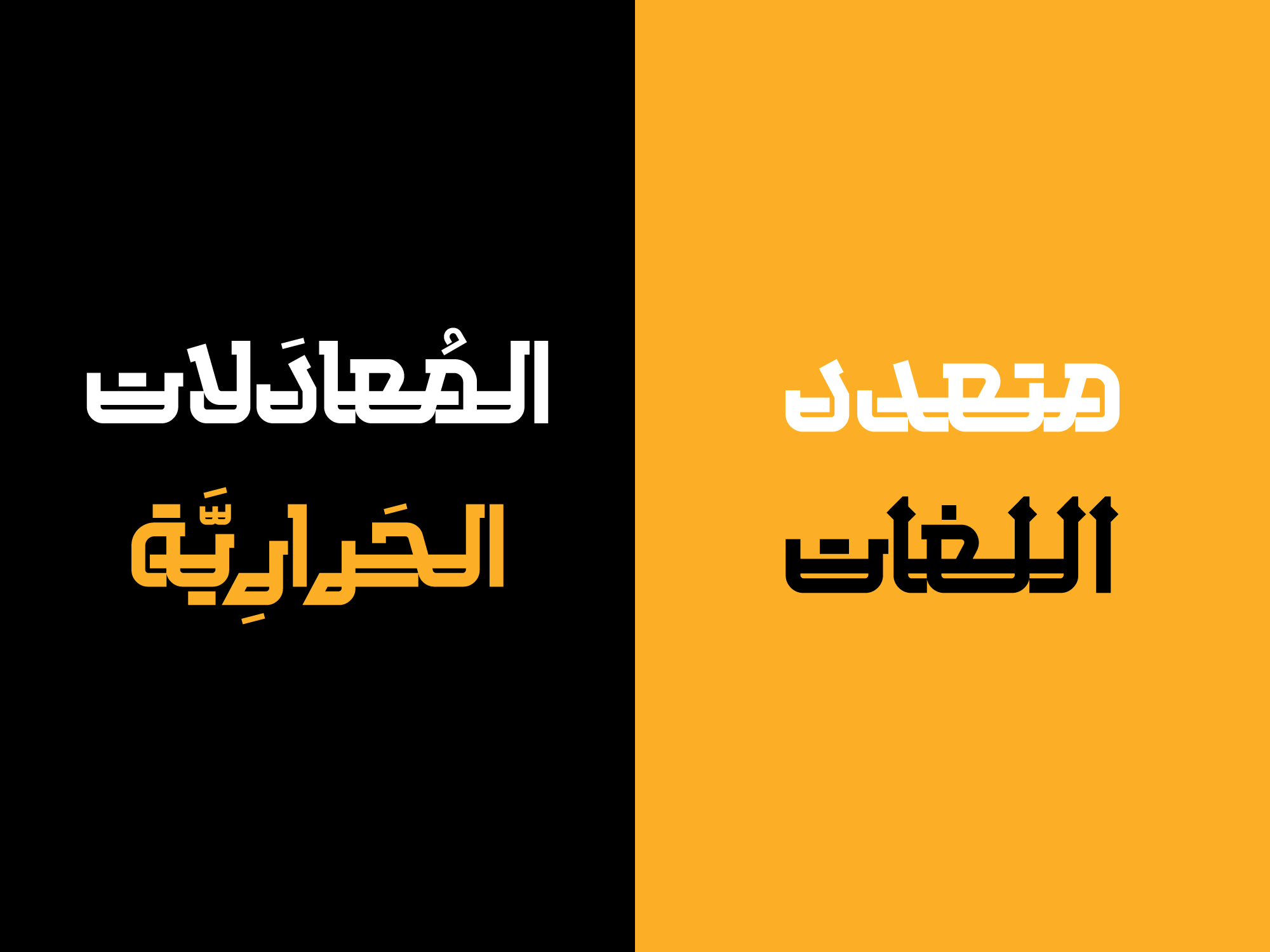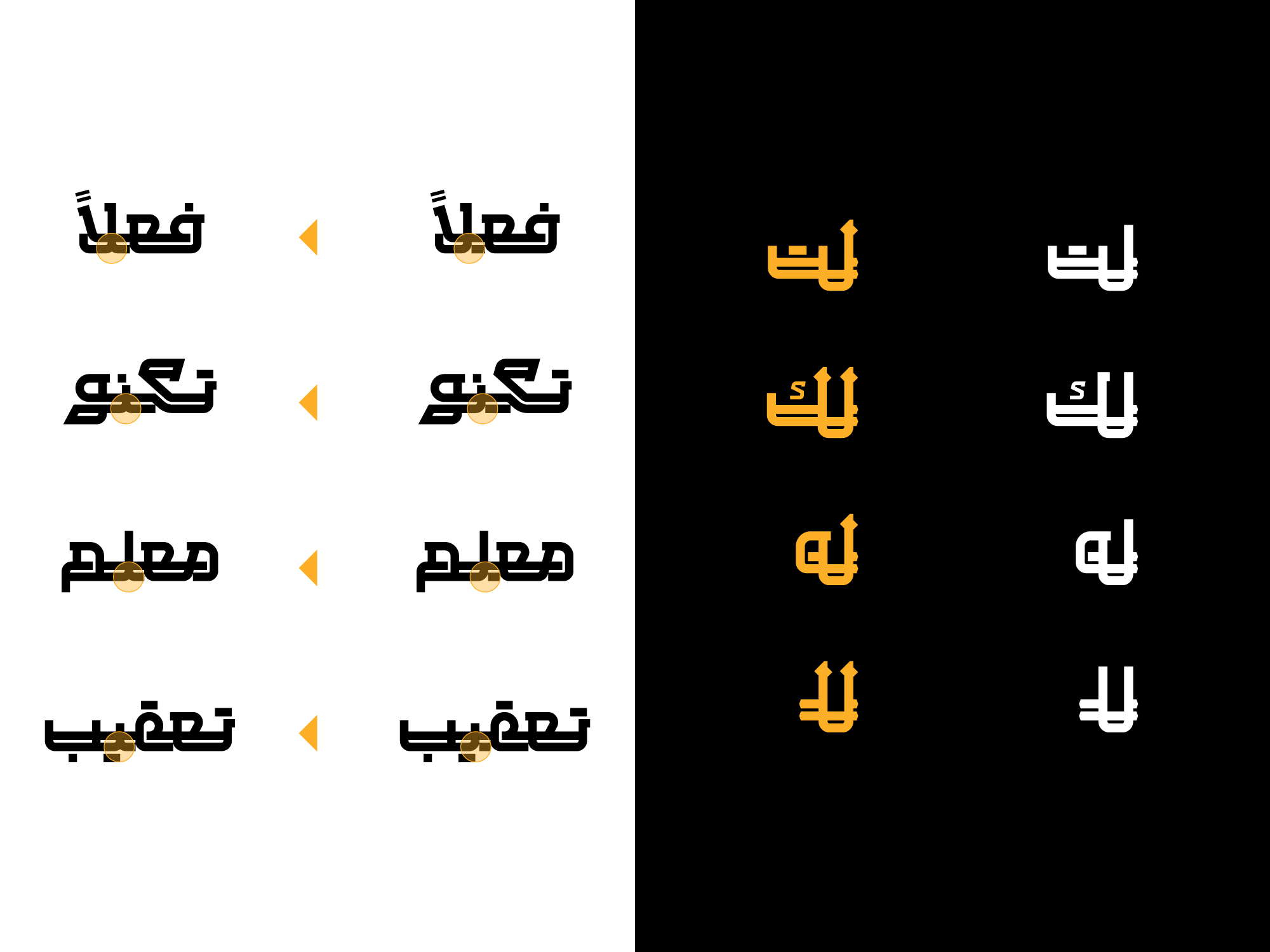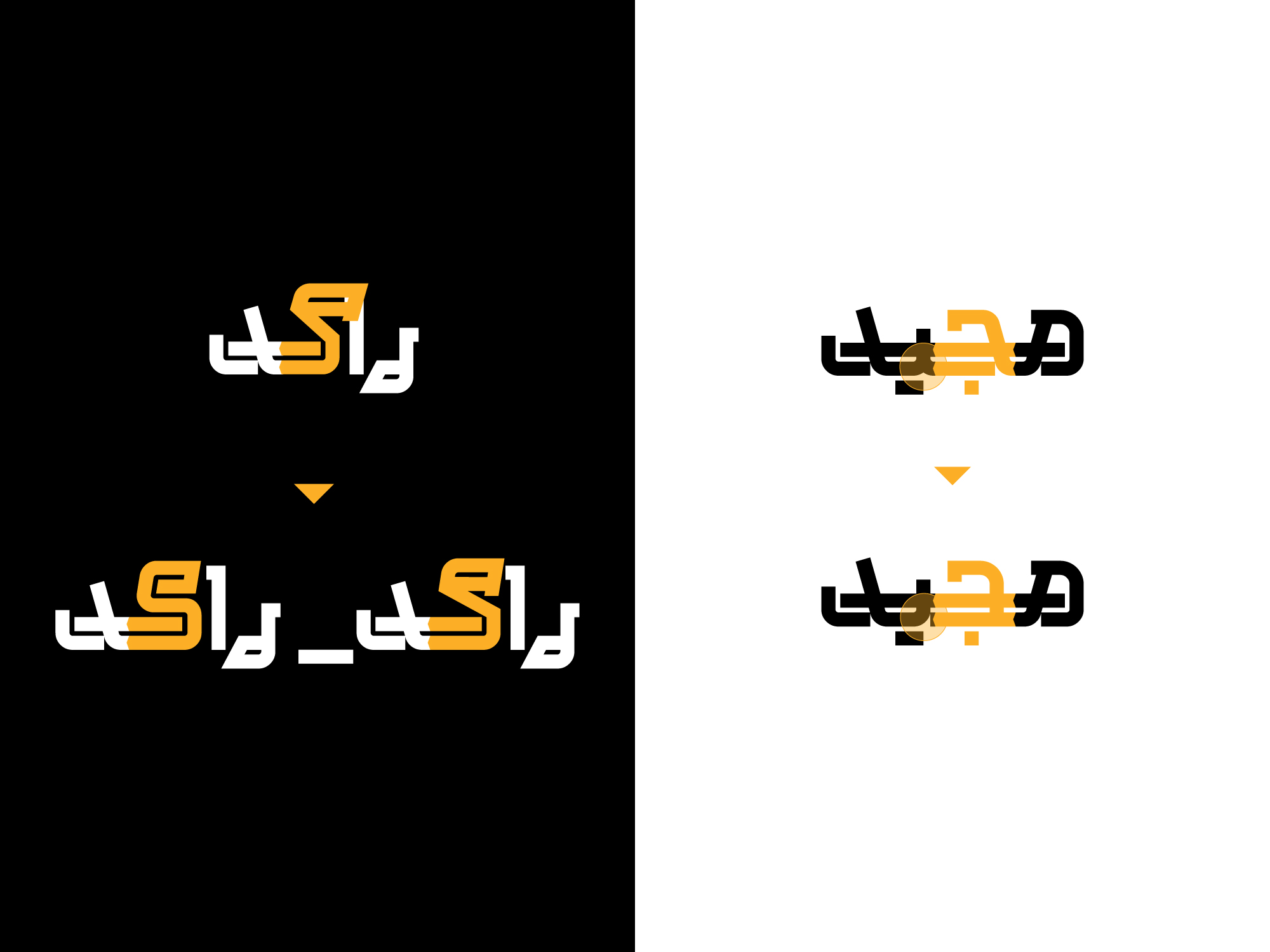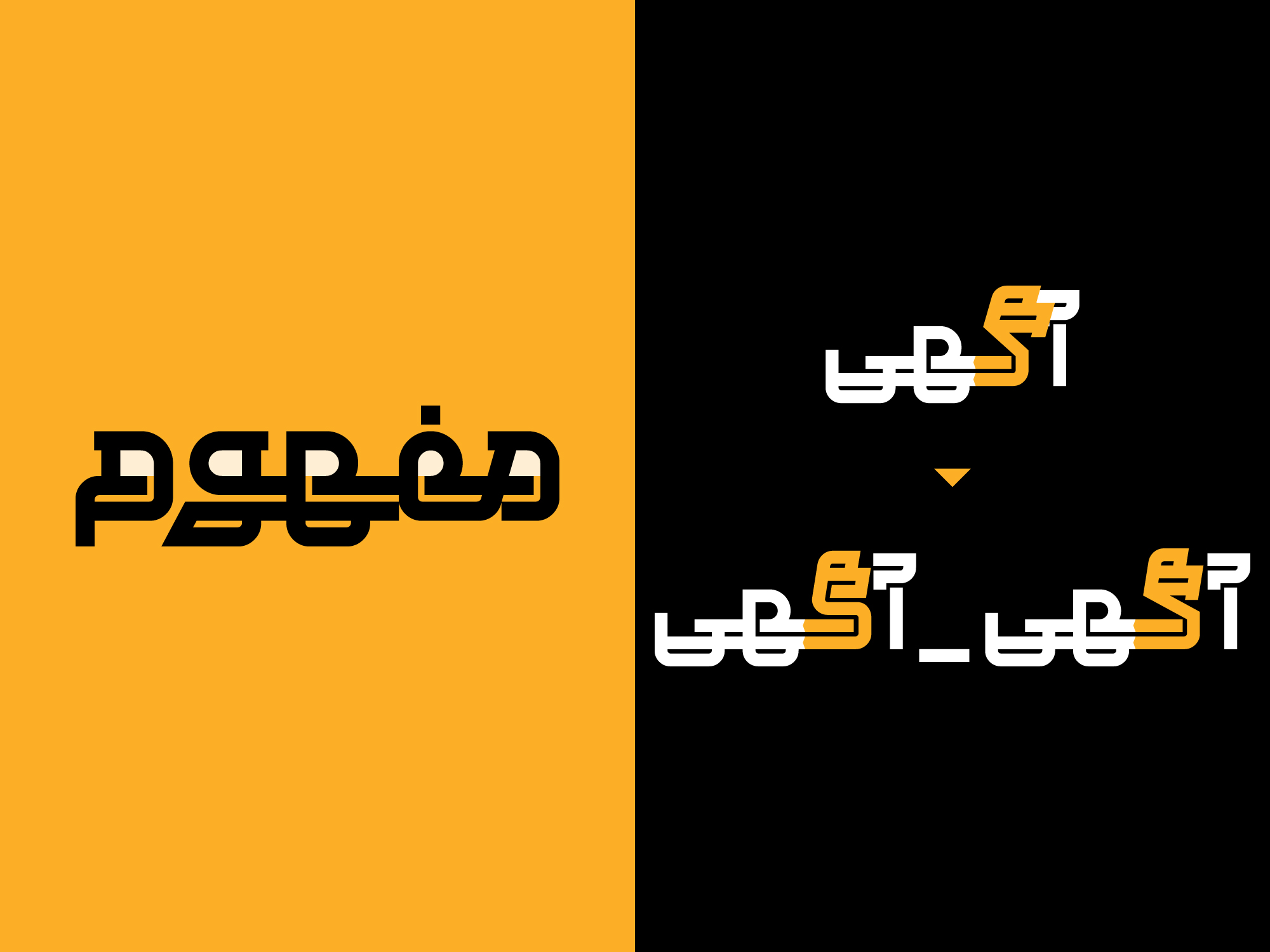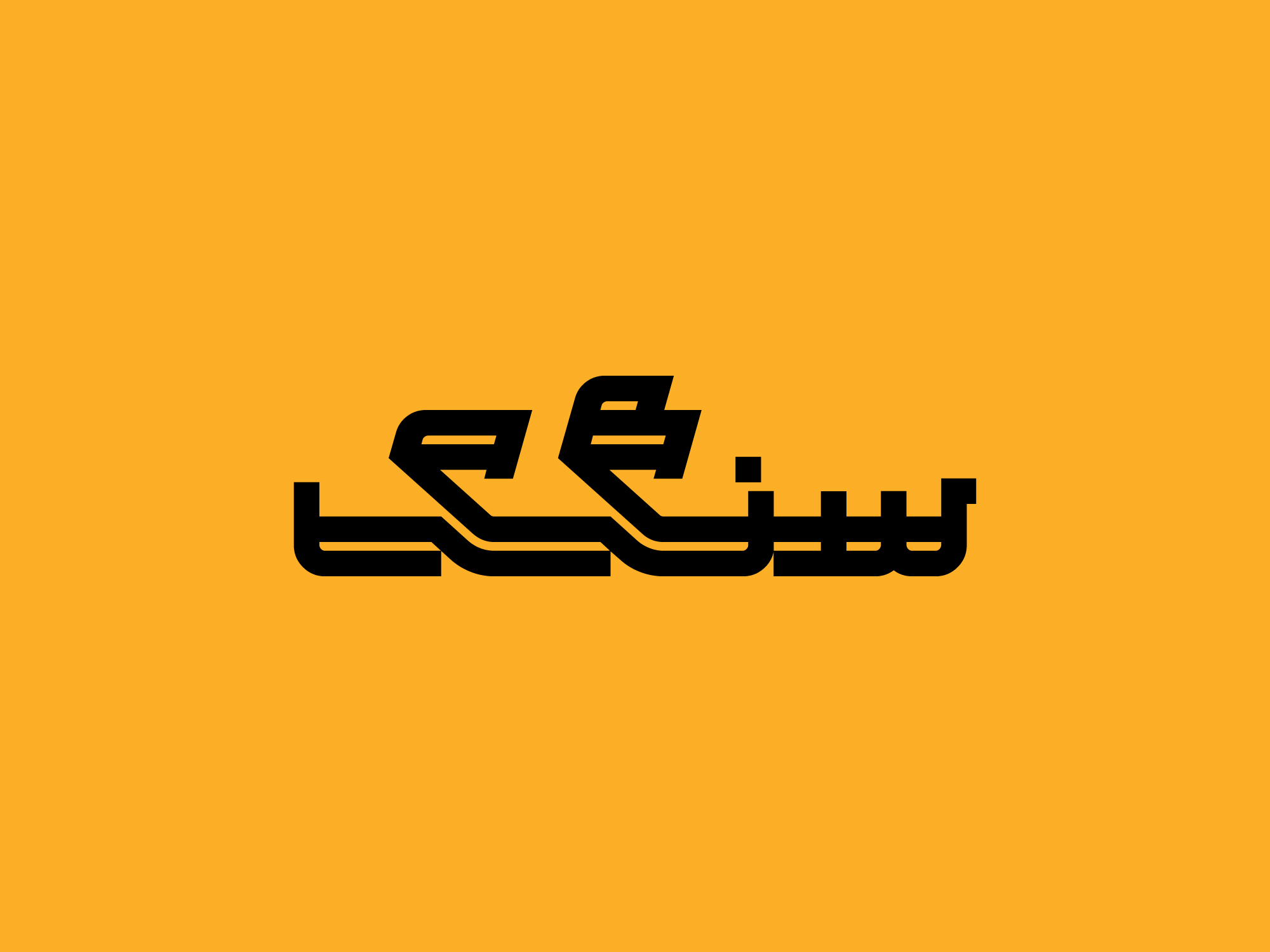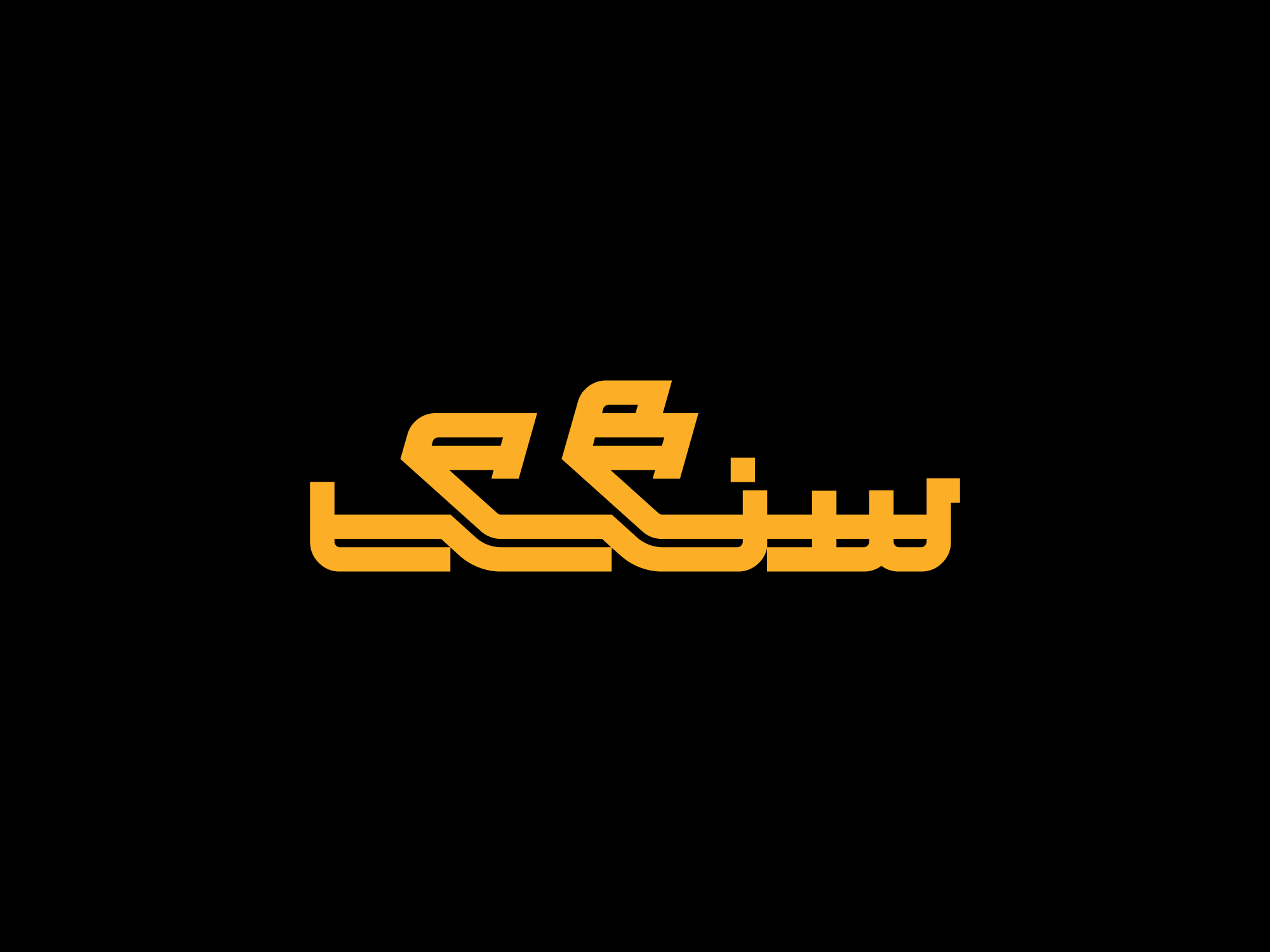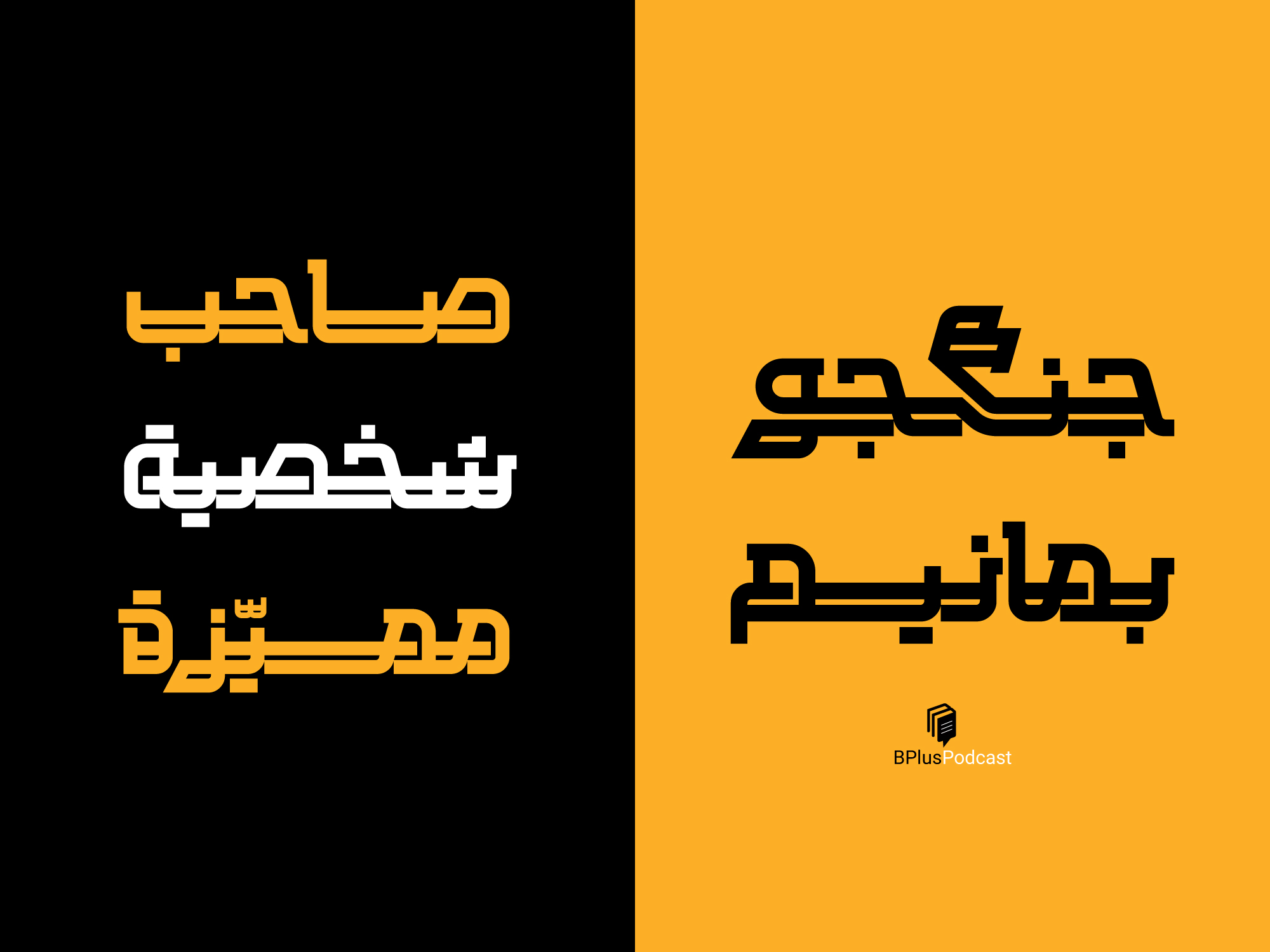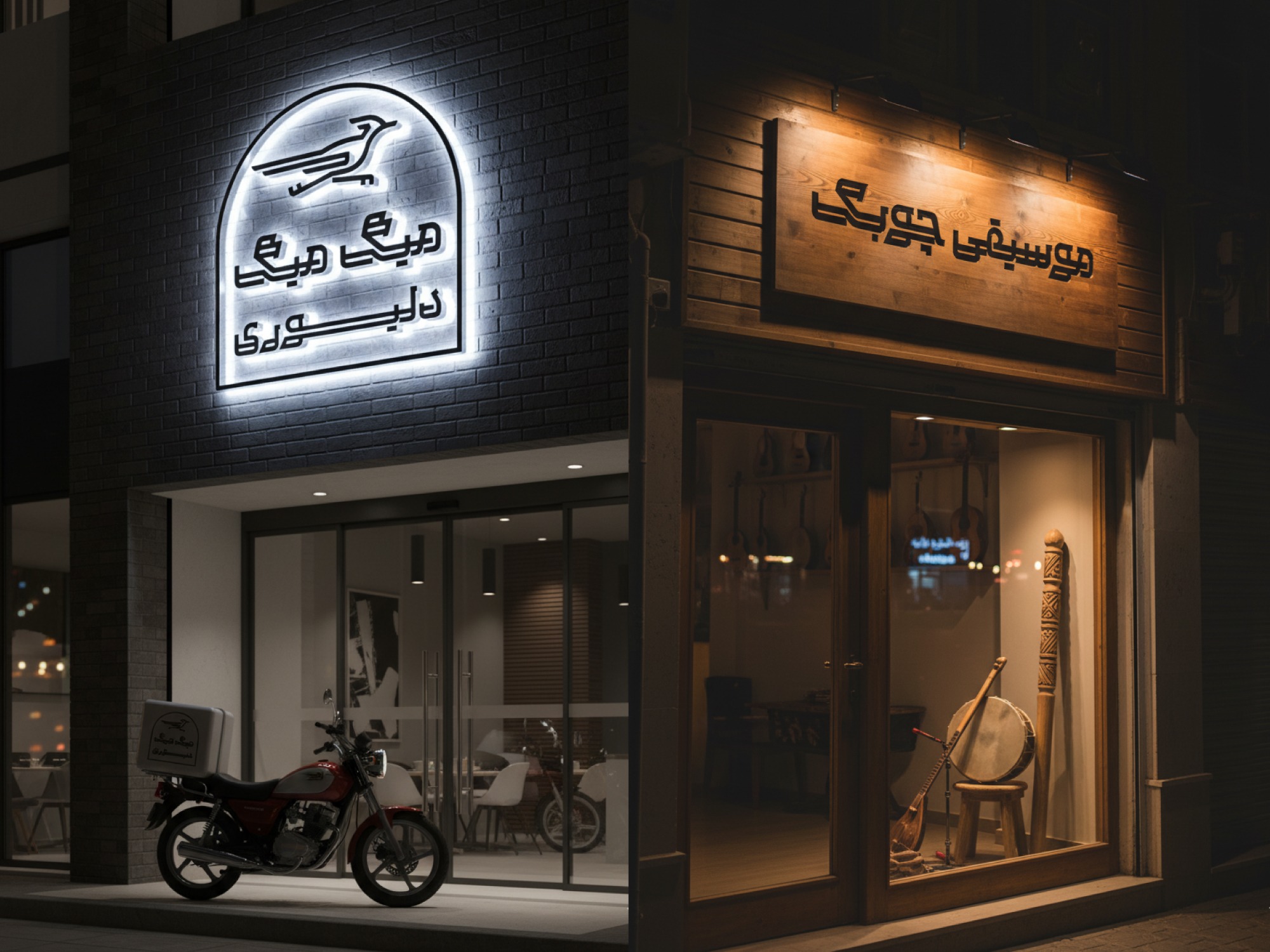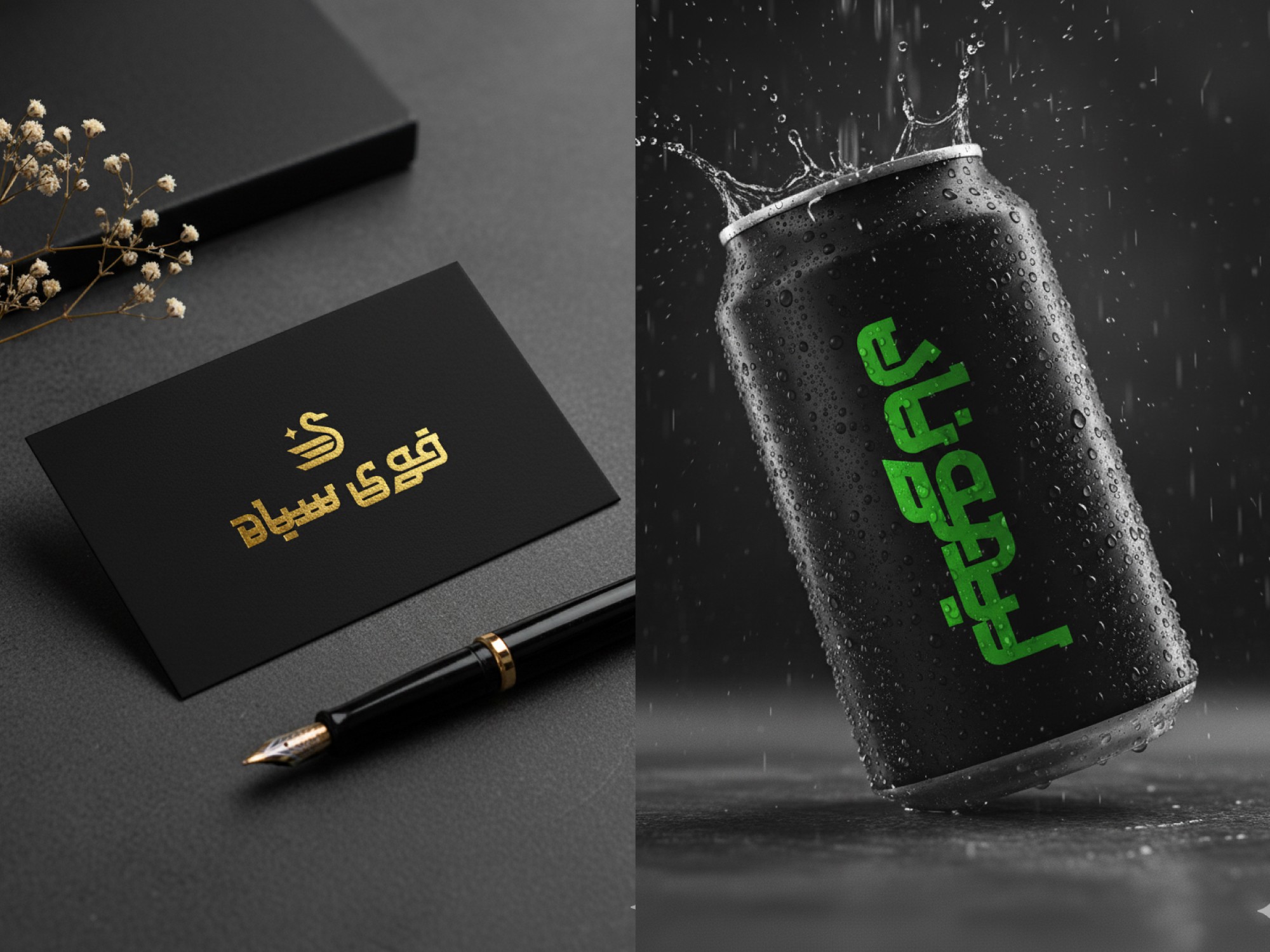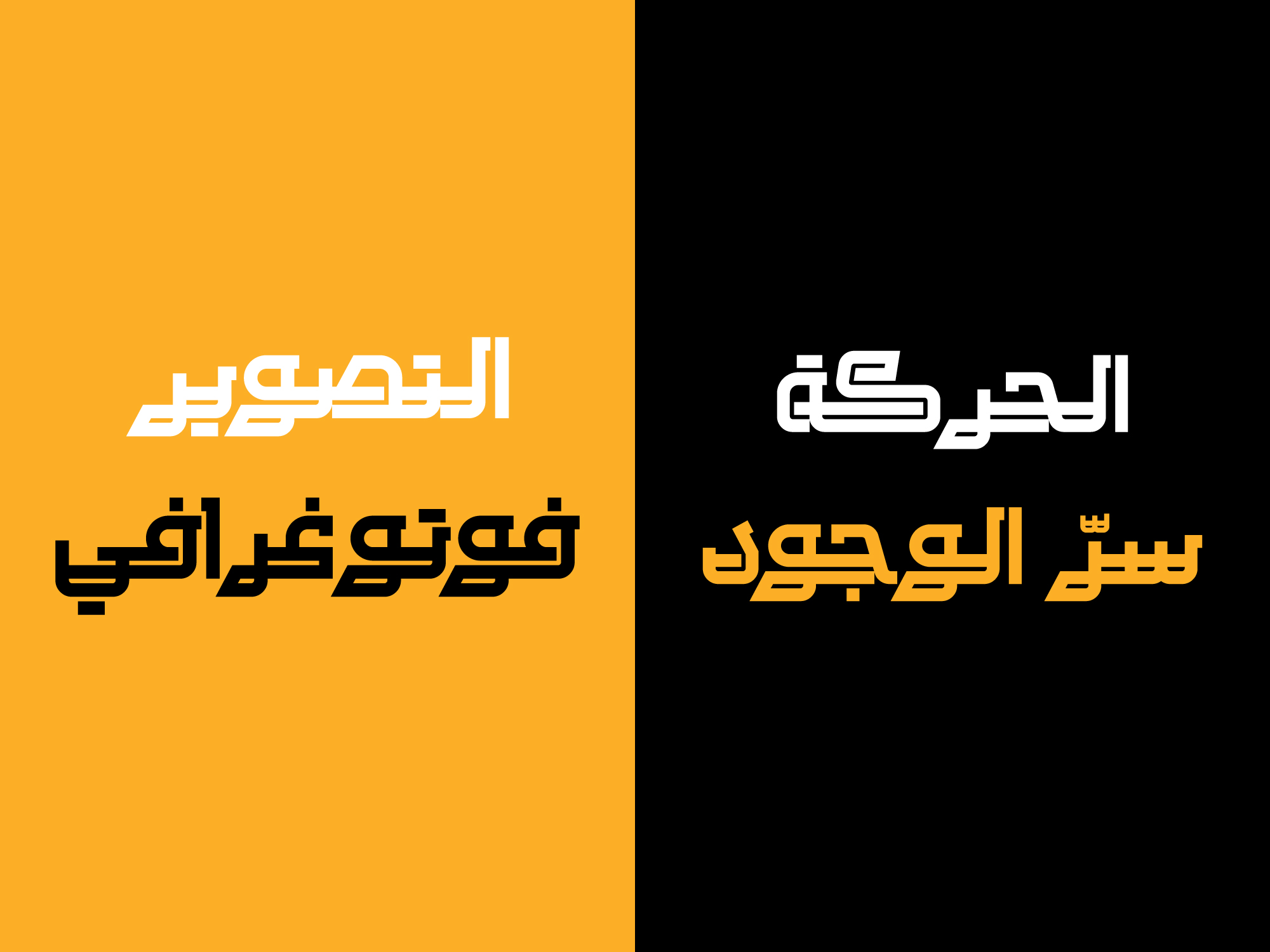
Techno
Techno is a unique experience in letter design; a display font that at first glance appears simple with uniform lines, yet on a deeper level plays intelligently with contrast and line structure.
The core idea behind the design is to use two parallel lines instead of thick surfaces for the letters, while in thinner parts, only a single line is applied. This subtle adjustment redefines familiar forms in the Persian alphabet, creating new shapes that are reminiscent of traditional script yet carry a modern visual language.
This distinctive approach to thickness gives the letters a dynamic rhythm, guiding the viewer’s eye along the lines, sometimes emphasizing the strength of two lines side by side, and sometimes the delicacy of a single line. The result is a font that is not only effective for posters, book covers, and graphic headlines but also serves as an artistic experience that pushes the familiar boundaries of typography.